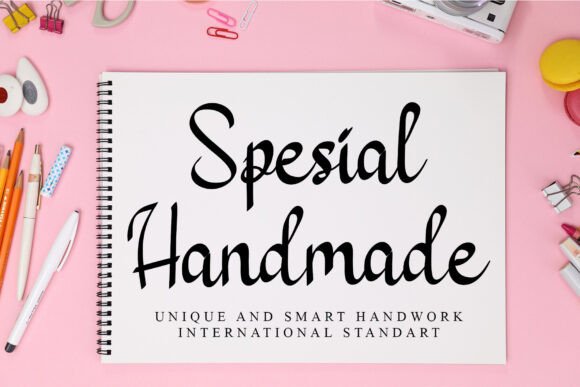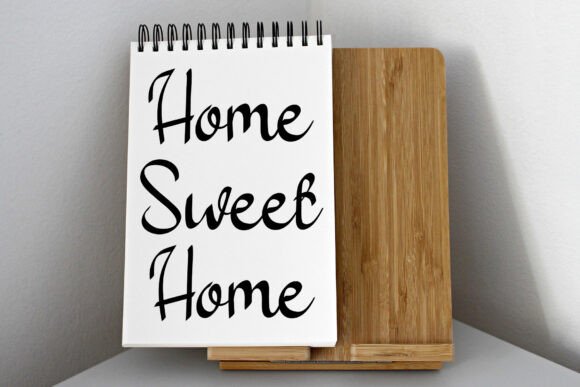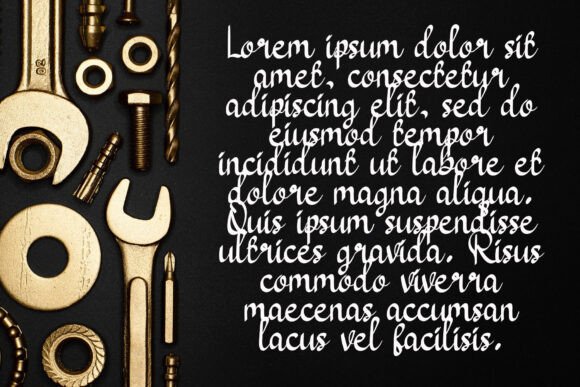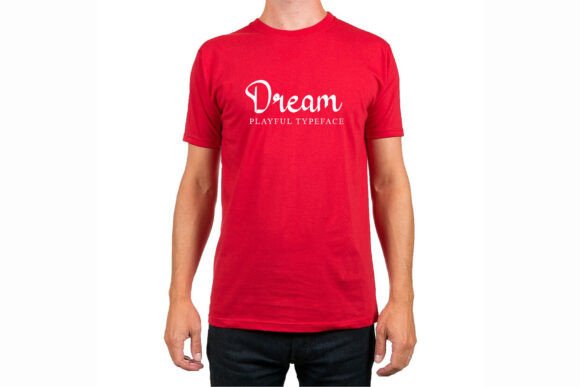
Introducing Akash Font: Elevate Your Designs with Elegance
Are you searching for a font that adds a touch of sophistication and uniqueness to your projects? Look no further than Akash Font, a beautifully crafted typeface designed to meet your creative needs. With its professional hand touch, Akash Font is perfect for a wide range of applications, from wedding invitations to school assignments and beyond.
The Versatility of Akash Font
Akash Font is more than just a typeface; it’s a tool that can elevate your designs to new heights. Its elegant and refined aesthetic makes it an ideal choice for:
- Wedding invitation cards: Add a touch of romance and sophistication to your wedding invites with Akash Font.
- Birthday cards: Make your birthday greetings stand out with this beautiful and unique font.
- Party invitations: Whether it’s a baby shower, graduation party, or any other celebration, Akash Font is the perfect choice.
- School assignments: Give your projects a professional edge with this carefully crafted font.
- Creative projects: Apply Akash Font to your creative ideas and watch them come to life.
Crafted with Care: The Features of Akash Font
Akash Font is not just another font; it’s a masterpiece crafted with attention to detail and a passion for typography. Here are some of its key features:
- Professional hand touch: Akash Font boasts a unique, hand-crafted aesthetic that sets it apart from other fonts.
- Glyph accessibility: This font is fully accessible with all glyphs, eliminating the need for additional applications.
- Wide range of uses: From formal events to creative projects, Akash Font is versatile enough to meet your diverse needs.
Why Choose Akash Font?
With so many fonts available, why choose Akash Font? Here are just a few compelling reasons:
- Unique and elegant design: Akash Font adds a touch of sophistication to any project.
- High-quality craftsmanship: This font is carefully crafted to ensure a professional finish.
- Easy to use: Akash Font is straightforward to apply and integrate into your designs.
- Versatile: Suitable for a wide range of projects, from formal events to creative endeavors.
Tips for Using Akash Font
To get the most out of Akash Font, here are some expert tips:
- Pair with complementary fonts: Combine Akash Font with other fonts to create visually appealing contrasts.
- Experiment with sizes and colors: Play with different sizes and colors to add depth and interest to your designs.
- Use it sparingly: Apply Akash Font strategically to create emphasis and impact.
Akash Font is a game-changer for designers and crafters looking to elevate their projects with a unique and elegant typeface. With its professional hand touch, versatility, and high-quality craftsmanship, this font is sure to become a staple in your design toolkit. Whether you’re working on a wedding invitation, school assignment, or creative project, Akash Font is the perfect choice. Try it today and discover a world of limitless design possibilities!